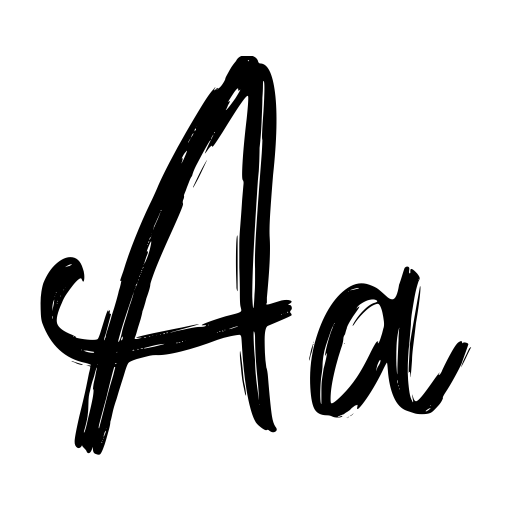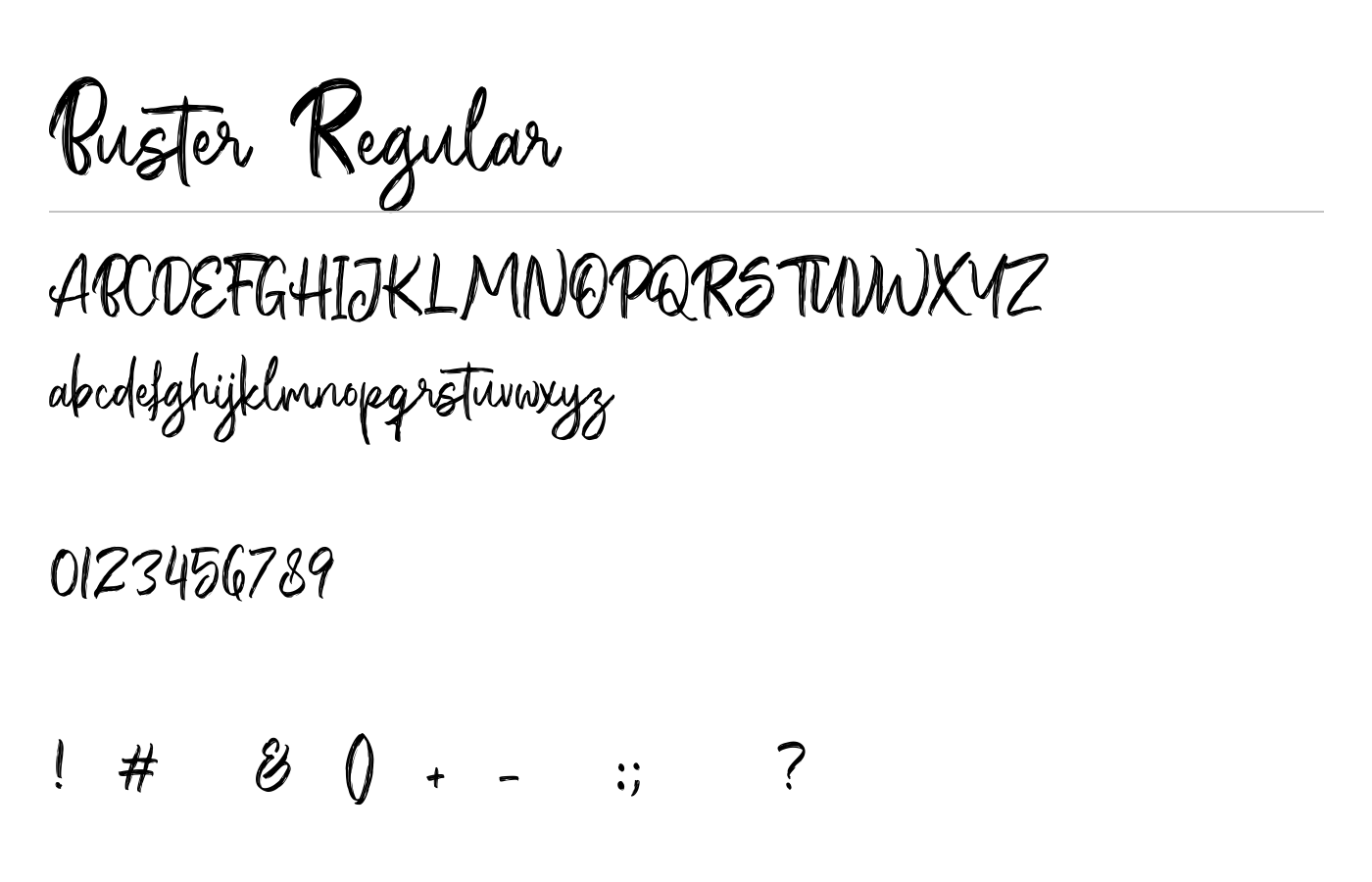
Buster Font is a lively and casual script typeface with a hand-drawn feel, featuring irregular, textured strokes that give it an authentic, brush-like appearance. Its playful and energetic style makes it perfect for creative branding, social media graphics, and informal invitations where a personal, artistic touch is desired. This font shines best in display uses, adding character and warmth to headlines and logos.
Buster Font
About Buster Font